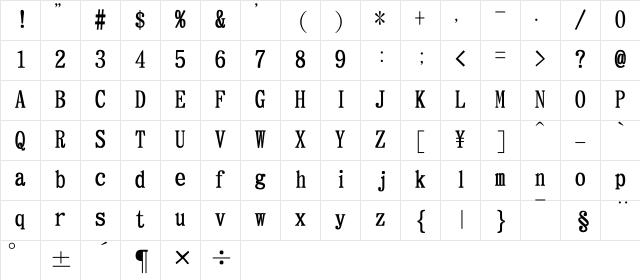
e` ȏl Regular
Design Context for e` ȏl
e` ȏl is a composed and adaptable typeface that performs quietly and consistently across a wide range of design contexts.